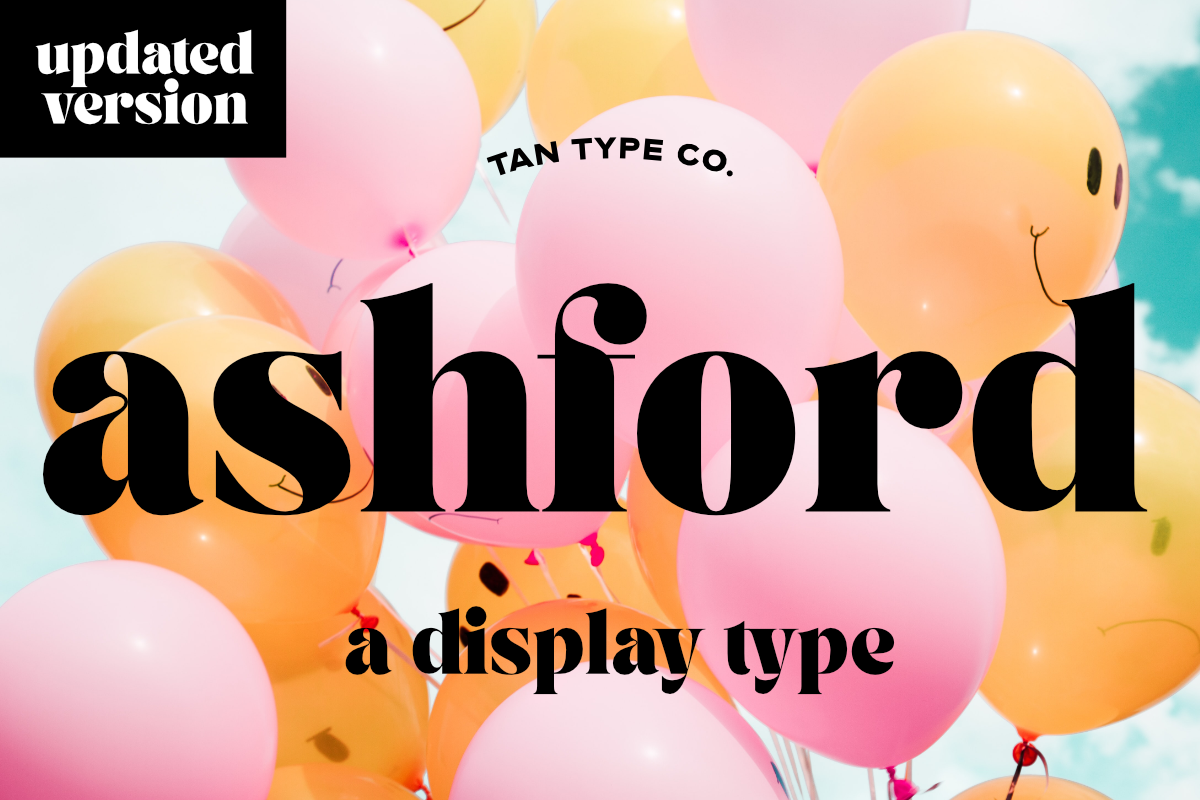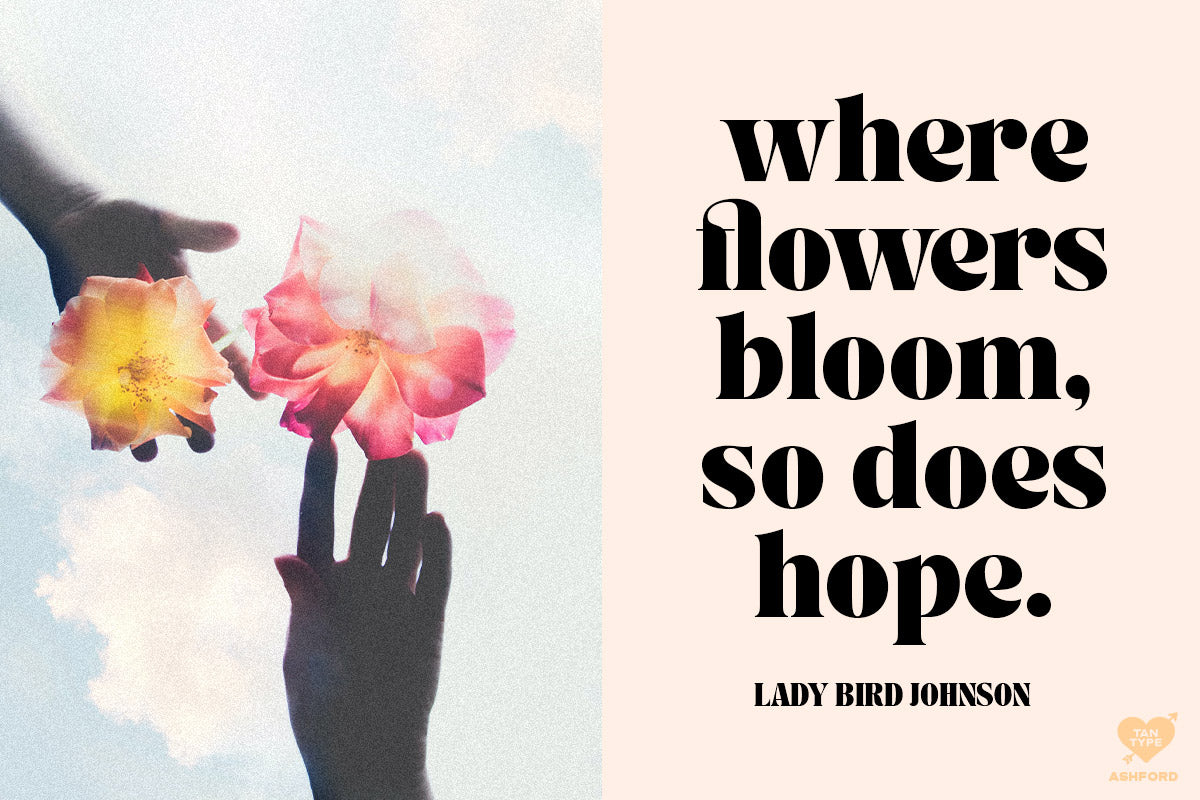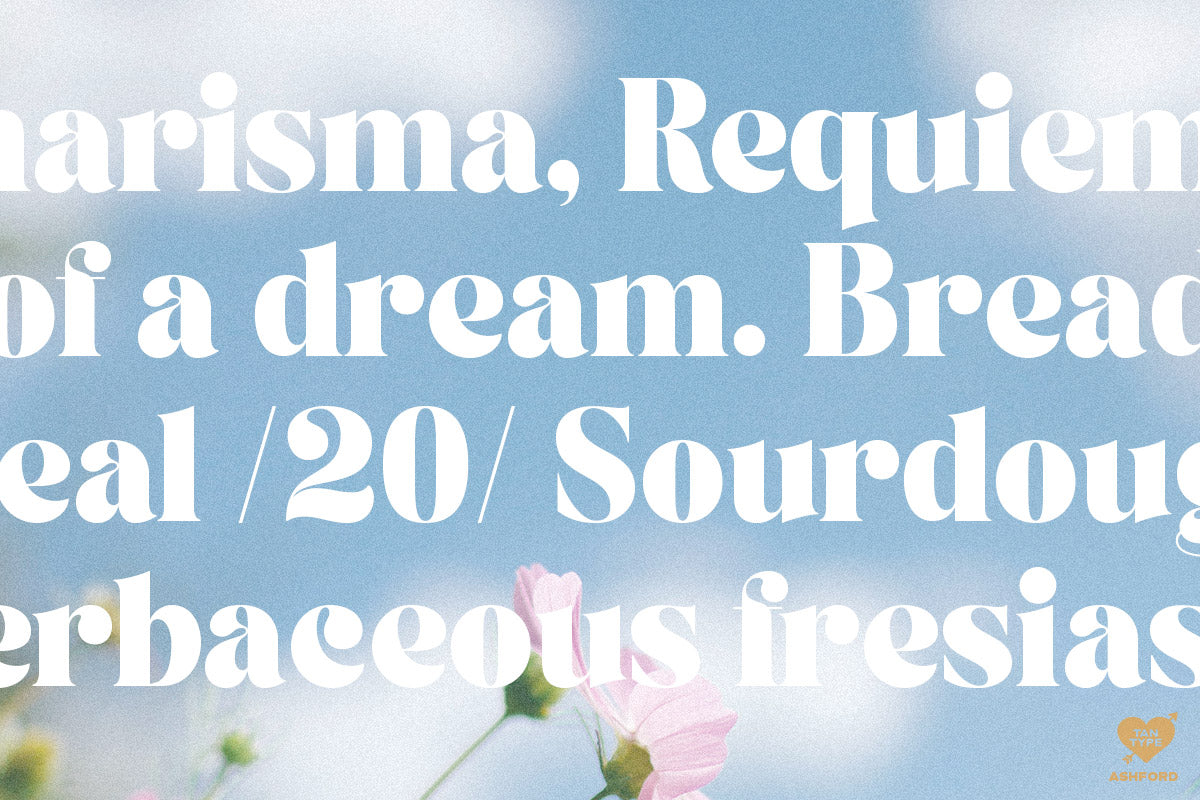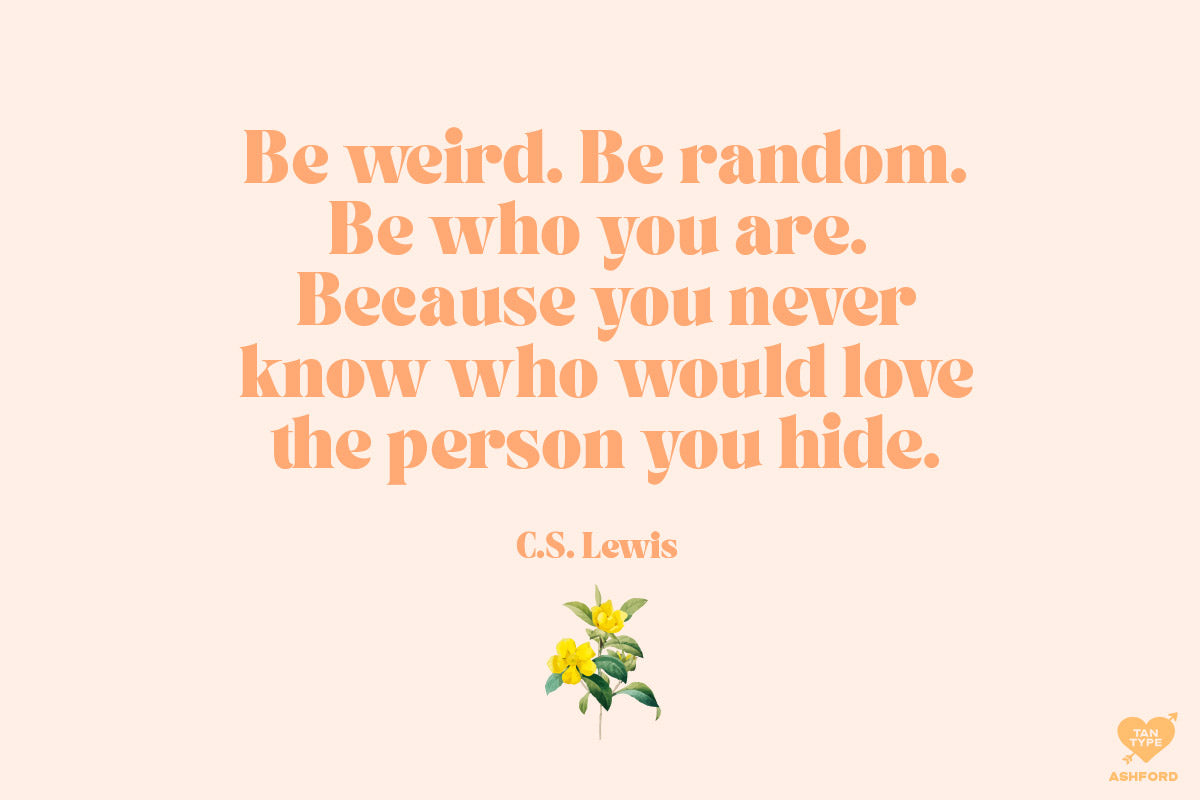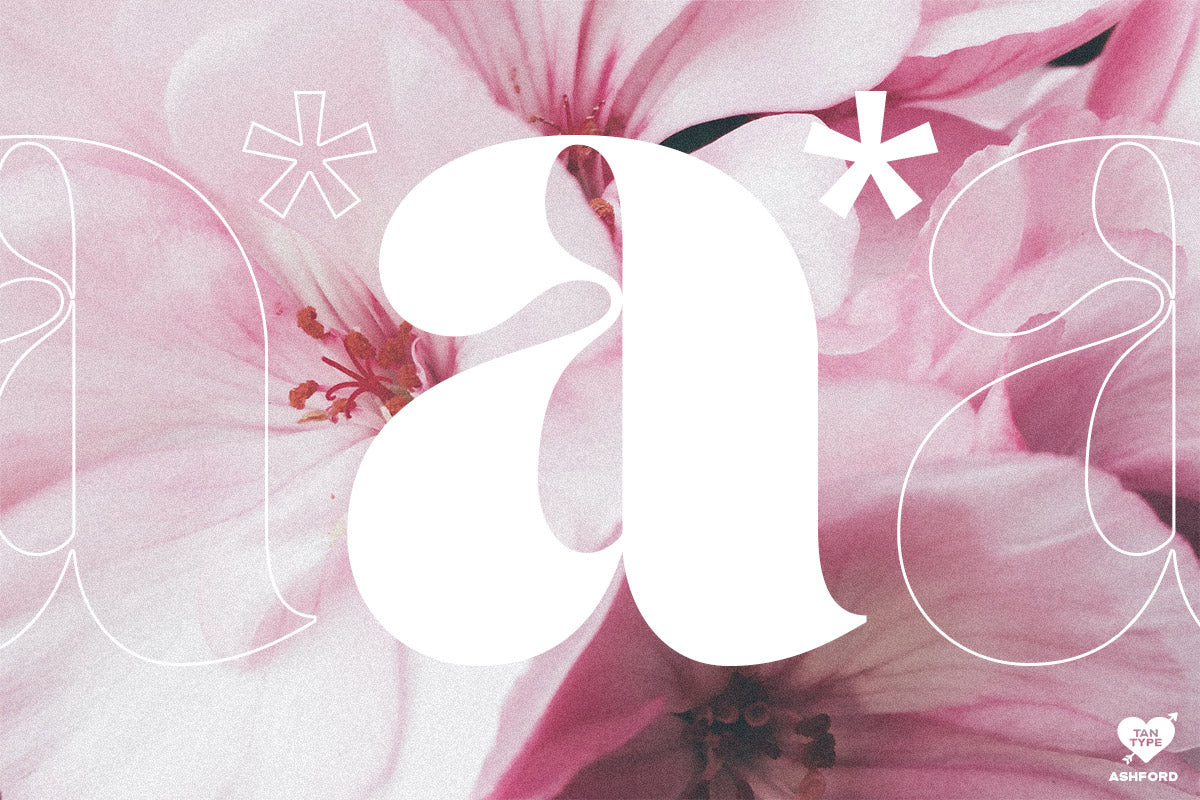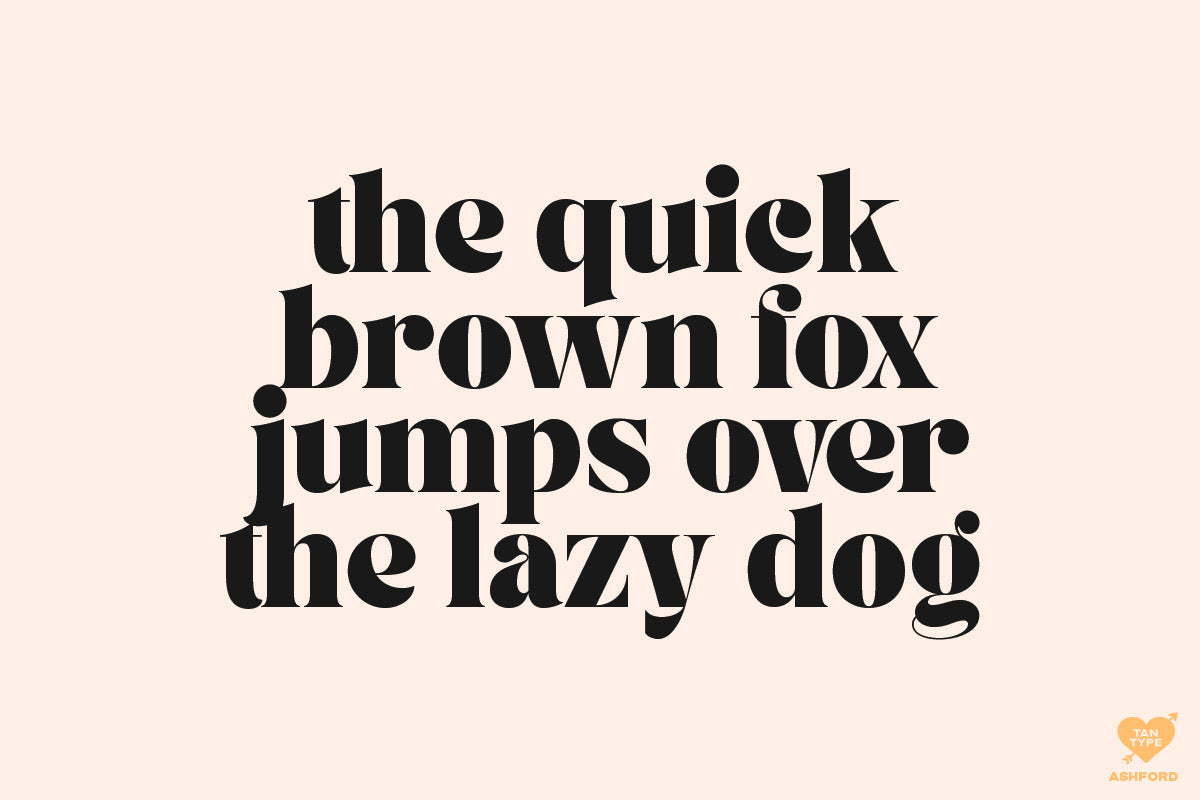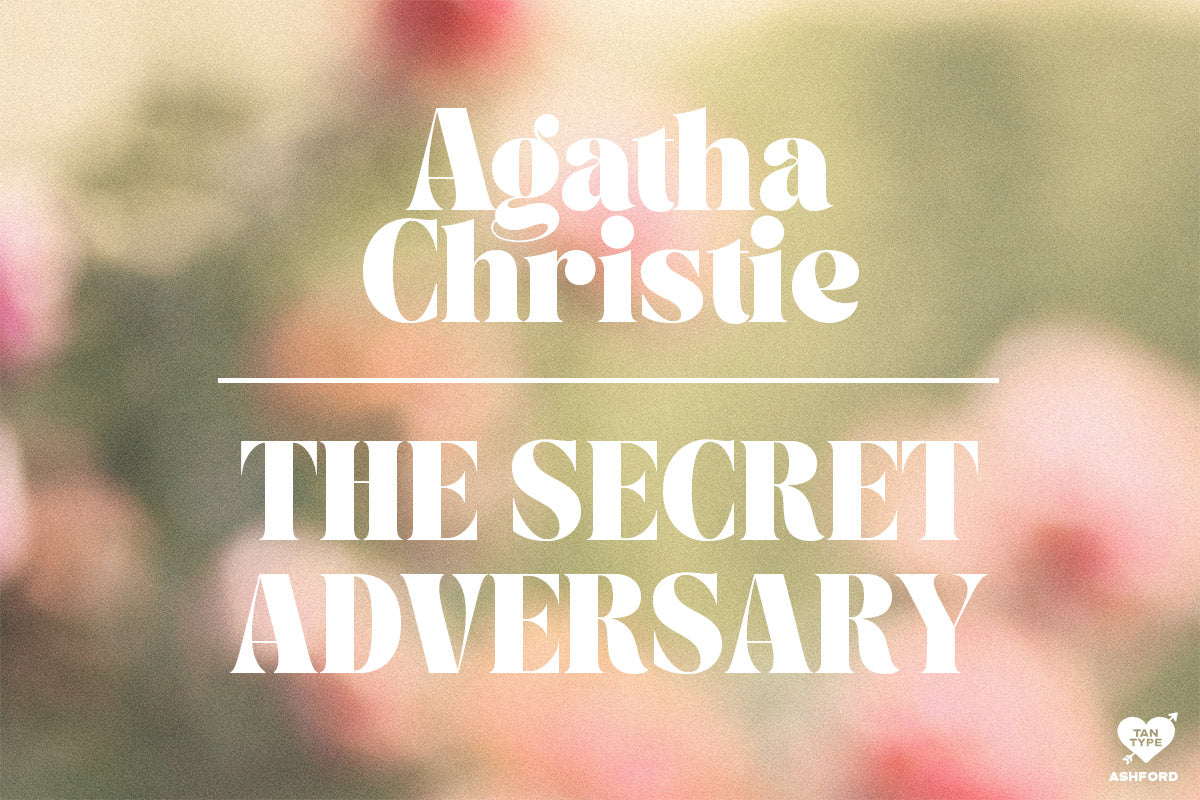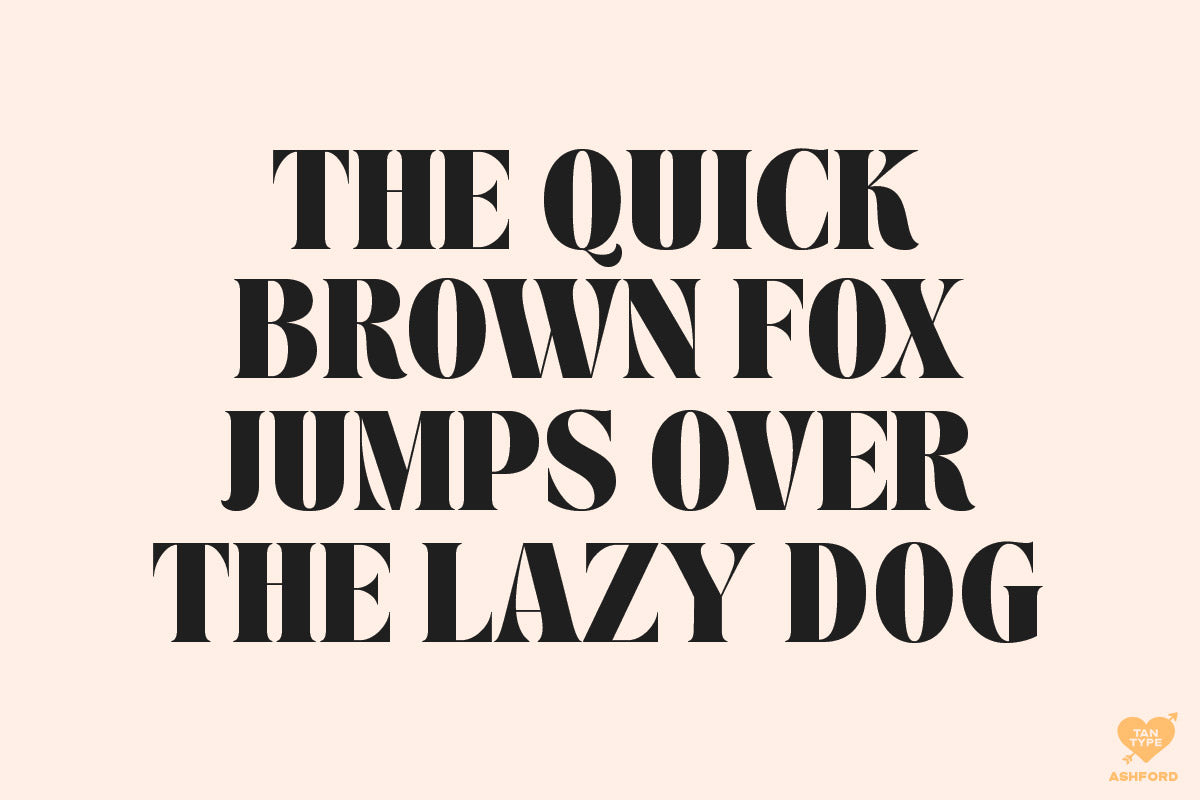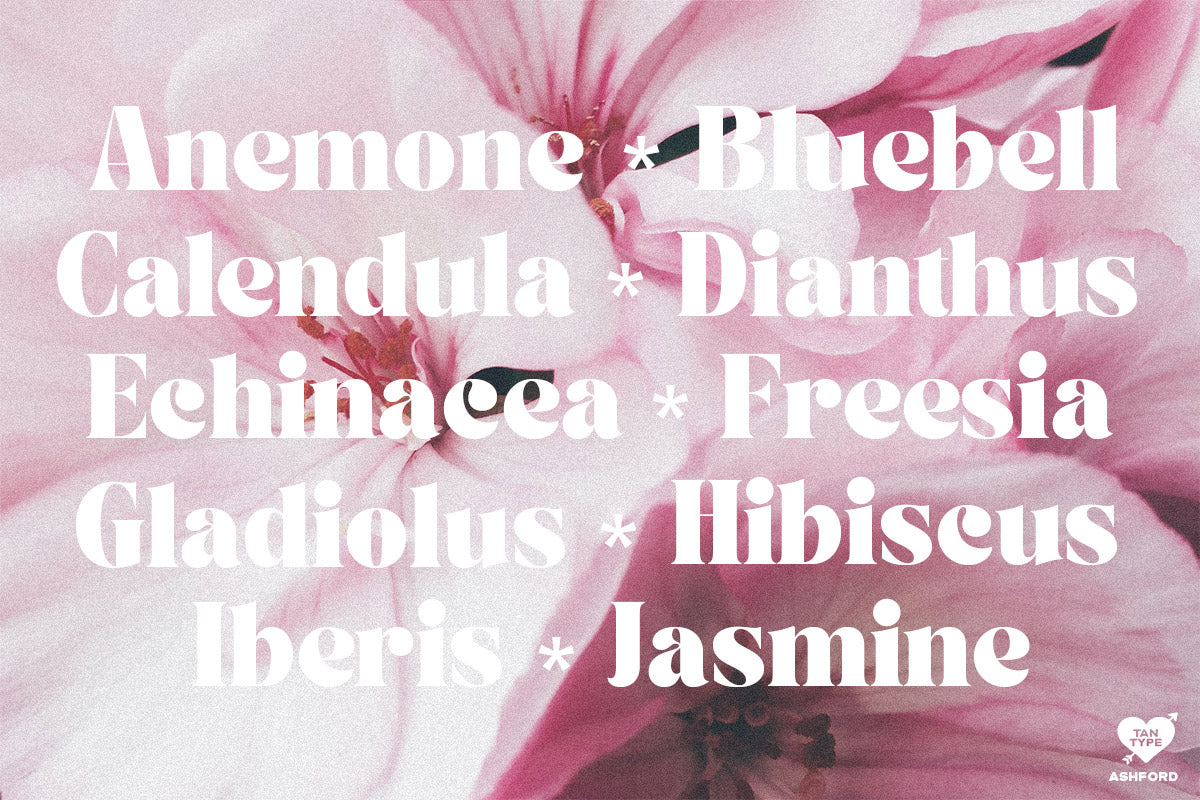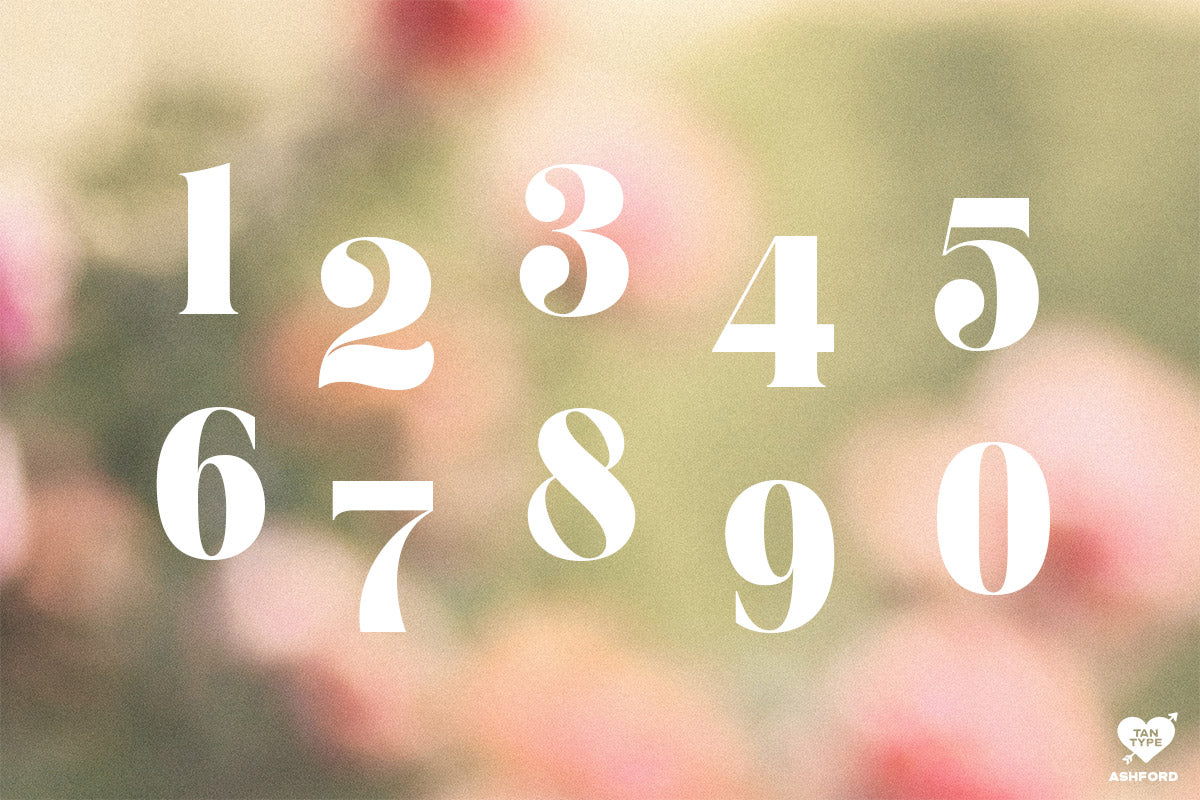
ASHFORD is a bold and charismatic display serif typeface with a playful edge and refined confidence. Its thick, sculpted letterforms and tight curves deliver high impact, blending vintage charm with modern flair in a beautifully balanced design.